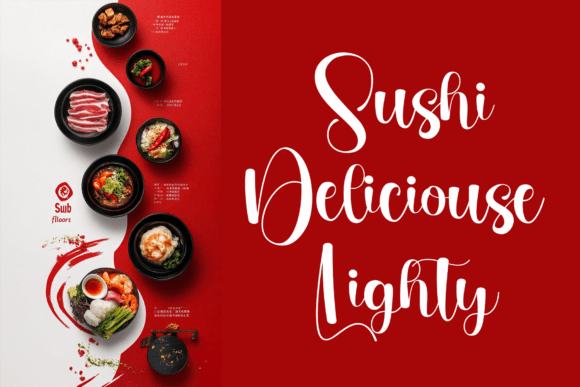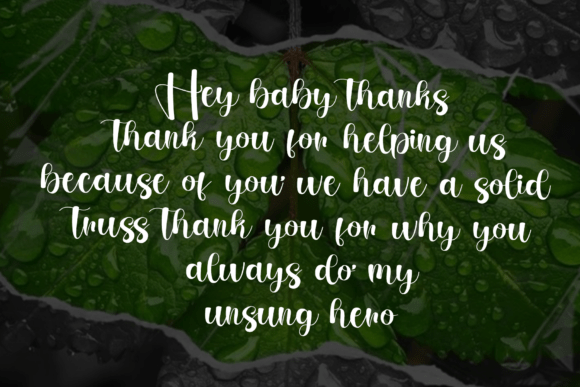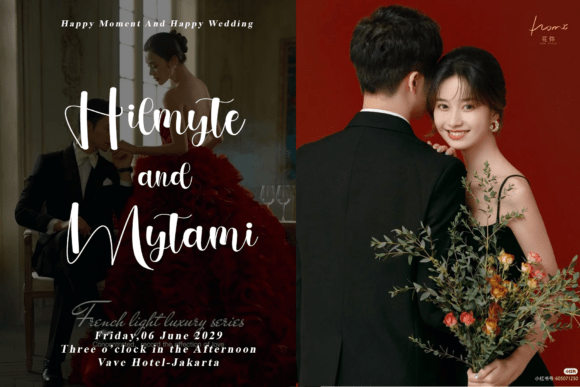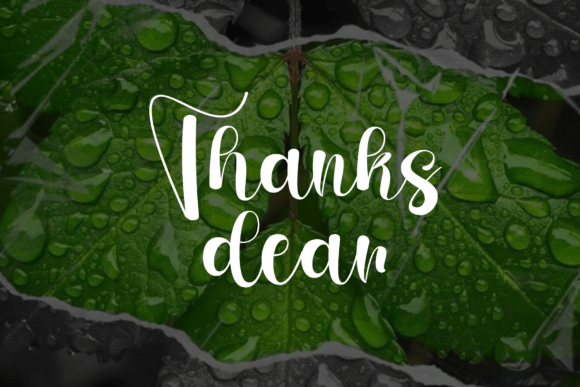
Introduction to Middy Beauty Font
Have you ever found yourself in the midst of a creative project, searching for the perfect font to bring your design to life? The blank page stares back at you, begging for inspiration. That’s exactly where I was when I stumbled upon the Middy Beauty Font. Its sweet and cursive handwritten style instantly captured my attention, transporting me to a world of elegance and whimsy.
As a designer, I know how crucial it is to have access to high-quality design resources like the Middy Beauty Font. With its transparent background and free download option, this font is a treasure trove for creatives looking to elevate their work. Whether you’re working on a branding project, crafting a wedding invitation, or designing a marketing campaign, the Middy Beauty Font is sure to add a touch of sophistication and romance to your design.
Key Features of Middy Beauty Font
- High-quality design resource suitable for creative projects, offering a unique and elegant aesthetic.
- Features a transparent background, allowing for easy layering and customization in your design work.
- Designed with precision and care, ensuring a crisp and clear display at resolutions up to 300 DPI.
- Includes a range of font sizes and styles to cater to your specific design needs.
Honest Review: Middy Beauty Font
As a designer, I’m always on the lookout for high-quality design resources to elevate my creative projects. Recently, I had the chance to work with the Middy Beauty Font, and I’m excited to share my honest review with you.
Here are the things that worked well for me: ✨
- Beautiful, elegant design aesthetic that’s perfect for feminine or luxury branding projects
- Includes a wide range of characters, including Latin, Cyrillic, and Greek alphabets
- High-quality fonts with crisp, clear lines and smooth typography
However, I did encounter a few limitations: ⚠️
- No support for transparent backgrounds, which can be a drawback for designers who need to use the font on a transparent background
- Not as extensive a character set as some other fonts in the same category
Overall, I was impressed with the Middy Beauty Font’s beautiful design and high-quality typography. While it may not be perfect, it’s a great addition to any designer’s toolkit, especially for free. I’d definitely recommend it for creative projects that require a touch of elegance and sophistication.